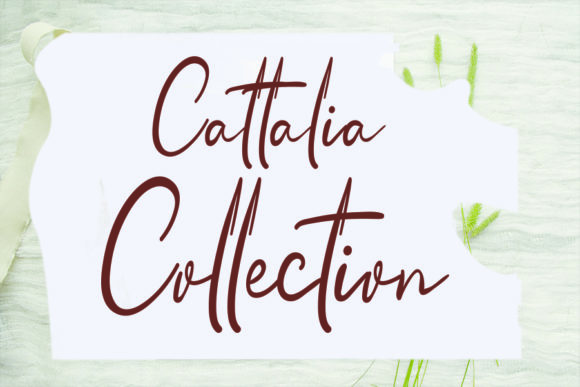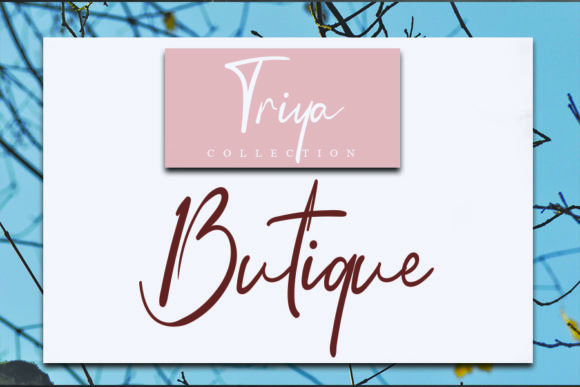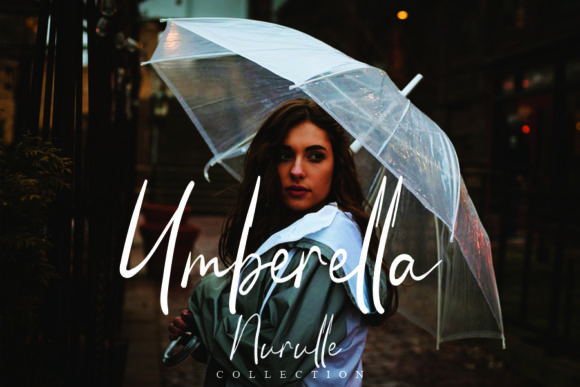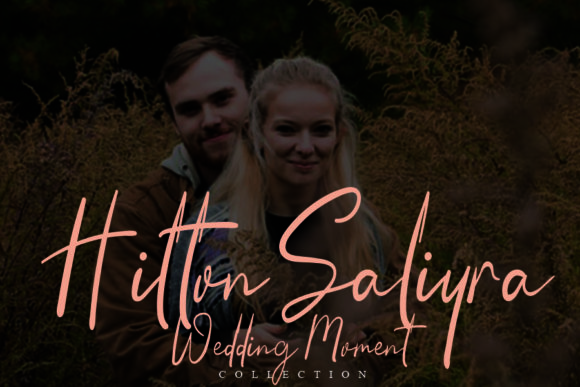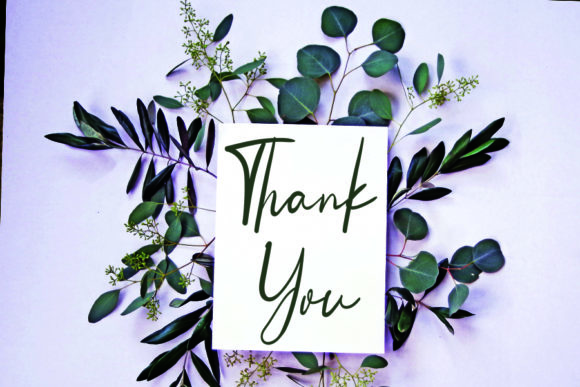
Blegedesh Font: Elevate Your Designs with Elegance and Timeless Style
In the world of typography, few fonts manage to capture the essence of elegance and timelessness. Blegedesh, a flowing handwritten font, is one such gem that has been making waves in the design community. With its incredibly distinct and elegant touch, Blegedesh is perfect for designers and crafters looking to add a touch of sophistication to their projects.
The Charm of Blegedesh
Blegedesh is more than just a font; it’s an experience. Its flowing script and elegant strokes evoke a sense of luxury and refinement, making it ideal for projects that demand a high level of sophistication. Whether you’re working on a branding project, a wedding invitation, or a packaging design, Blegedesh can help you create spectacular designs that leave a lasting impression.
Key Features of Blegedesh
- Flowing Handwritten Style: Blegedesh boasts a beautiful, flowing script that adds a touch of elegance to any design.
- Elegant Touch: The font’s elegant strokes and curves make it perfect for projects that require a sophisticated look.
- Distinct and Timeless Style: Blegedesh’s unique style sets it apart from other fonts, making it a great choice for designers looking to create memorable designs.
- Versatility: Blegedesh can be used for a wide range of projects, from branding and advertising to packaging and stationery.
Why Choose Blegedesh?
With so many fonts available, why choose Blegedesh? Here are a few compelling reasons:
- Stand Out from the Crowd: Blegedesh’s unique style ensures that your designs will stand out from the crowd and leave a lasting impression.
- Easy to Read: Despite its elegant and flowing script, Blegedesh is easy to read, making it perfect for body text and headlines.
- Customizable: Blegedesh can be customized to fit your project’s specific needs, allowing you to experiment with different styles and effects.
Using Blegedesh in Your Designs
So, how can you use Blegedesh in your designs? Here are a few ideas to get you started:
- Branding and Logo Design: Use Blegedesh to create elegant and sophisticated logos that reflect your brand’s personality.
- Wedding Invitations and Stationery: Add a touch of luxury to your wedding invitations and stationery with Blegedesh’s flowing script.
- Packaging Design: Use Blegedesh to create eye-catching packaging designs that stand out on store shelves.
- Advertising and Marketing: Blegedesh is perfect for advertising and marketing materials, such as brochures, flyers, and posters.
Tips for Working with Blegedesh
To get the most out of Blegedesh, here are a few tips to keep in mind:
- Experiment with Different Sizes and Styles: Blegedesh looks great in a variety of sizes and styles, so don’t be afraid to experiment and find the perfect fit for your project.
- Pair with Other Fonts: Blegedesh pairs well with other fonts, so try combining it with a sans-serif font for a striking contrast.
- Pay Attention to Kerning and Tracking: Make sure to adjust the kerning and tracking to ensure that Blegedesh looks its best in your design.
Blegedesh is a truly unique and elegant font that can elevate your designs to new heights. With its flowing handwritten style, elegant touch, and timeless charm, Blegedesh is perfect for designers and crafters looking to create spectacular designs. Whether you’re working on a branding project, a wedding invitation, or a packaging design, Blegedesh is sure to impress. So why wait? Fall in love with Blegedesh and take your designs to the next level!